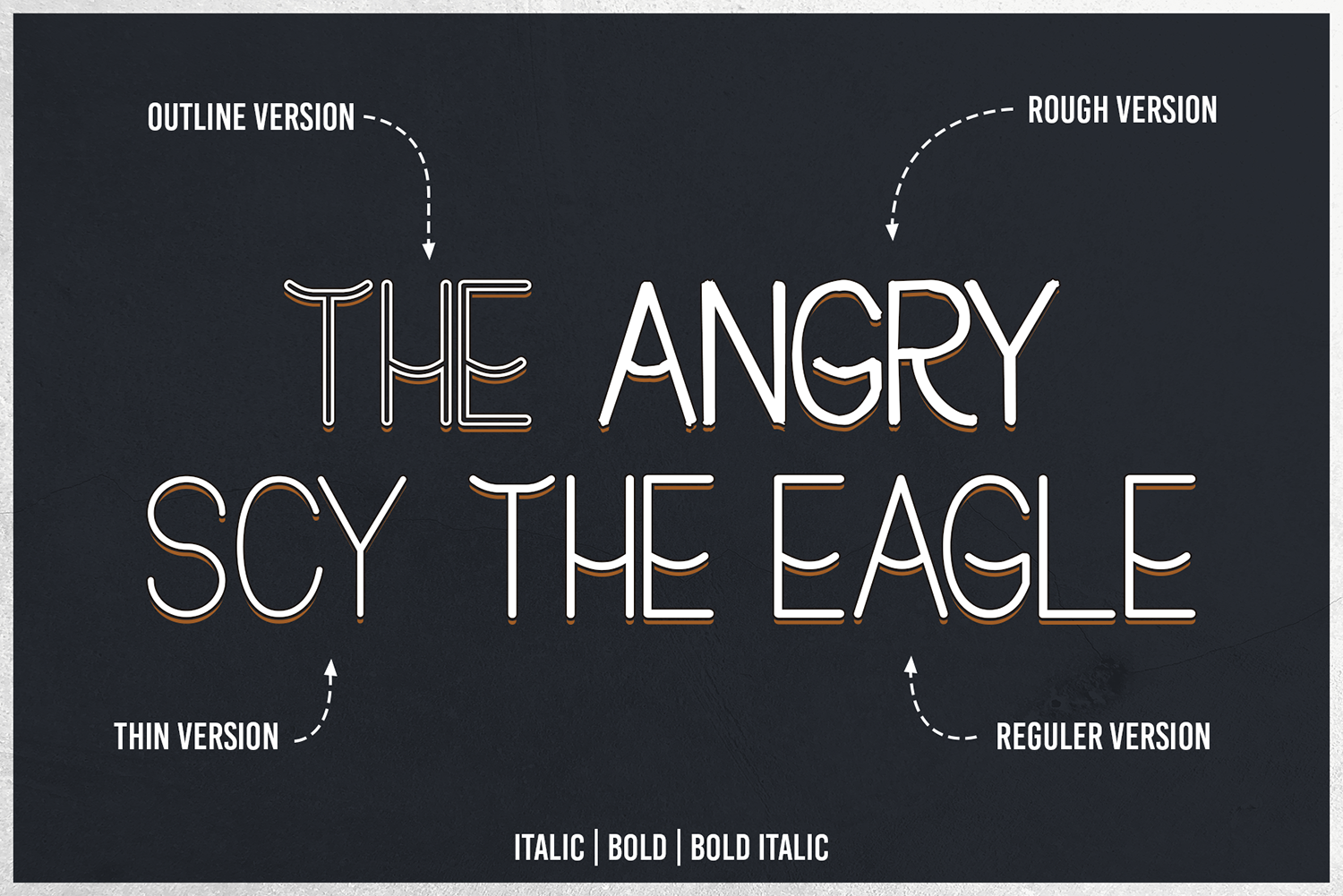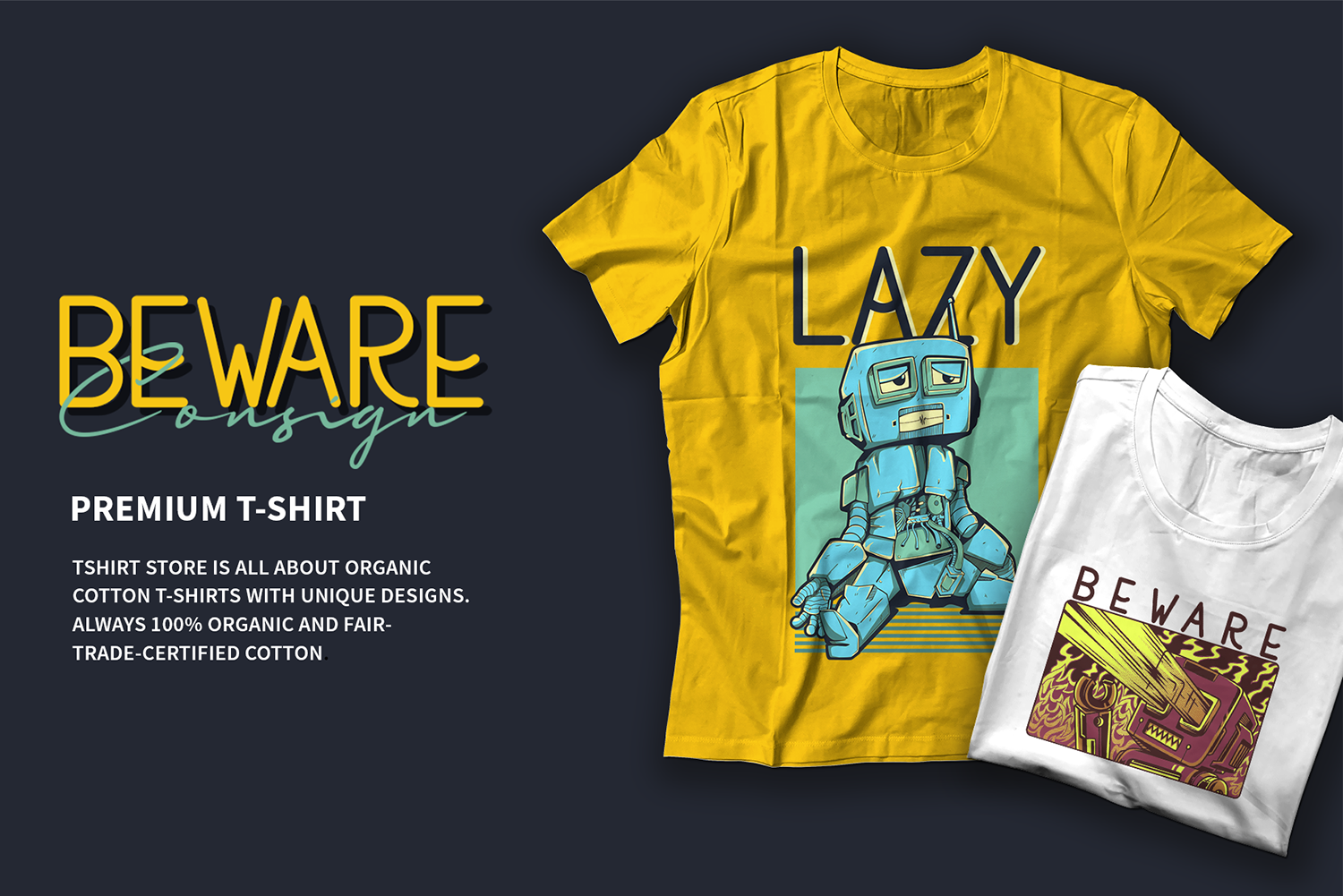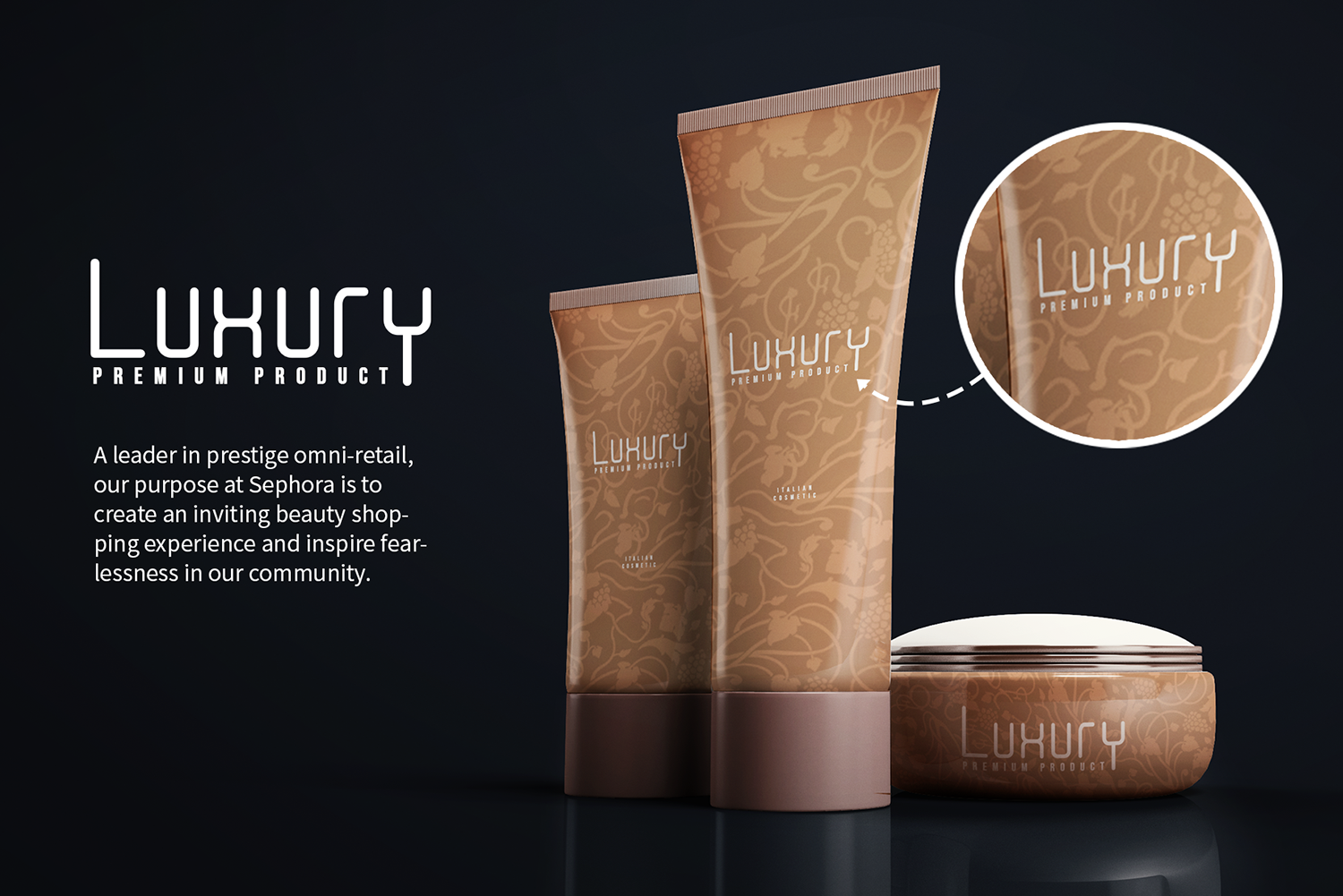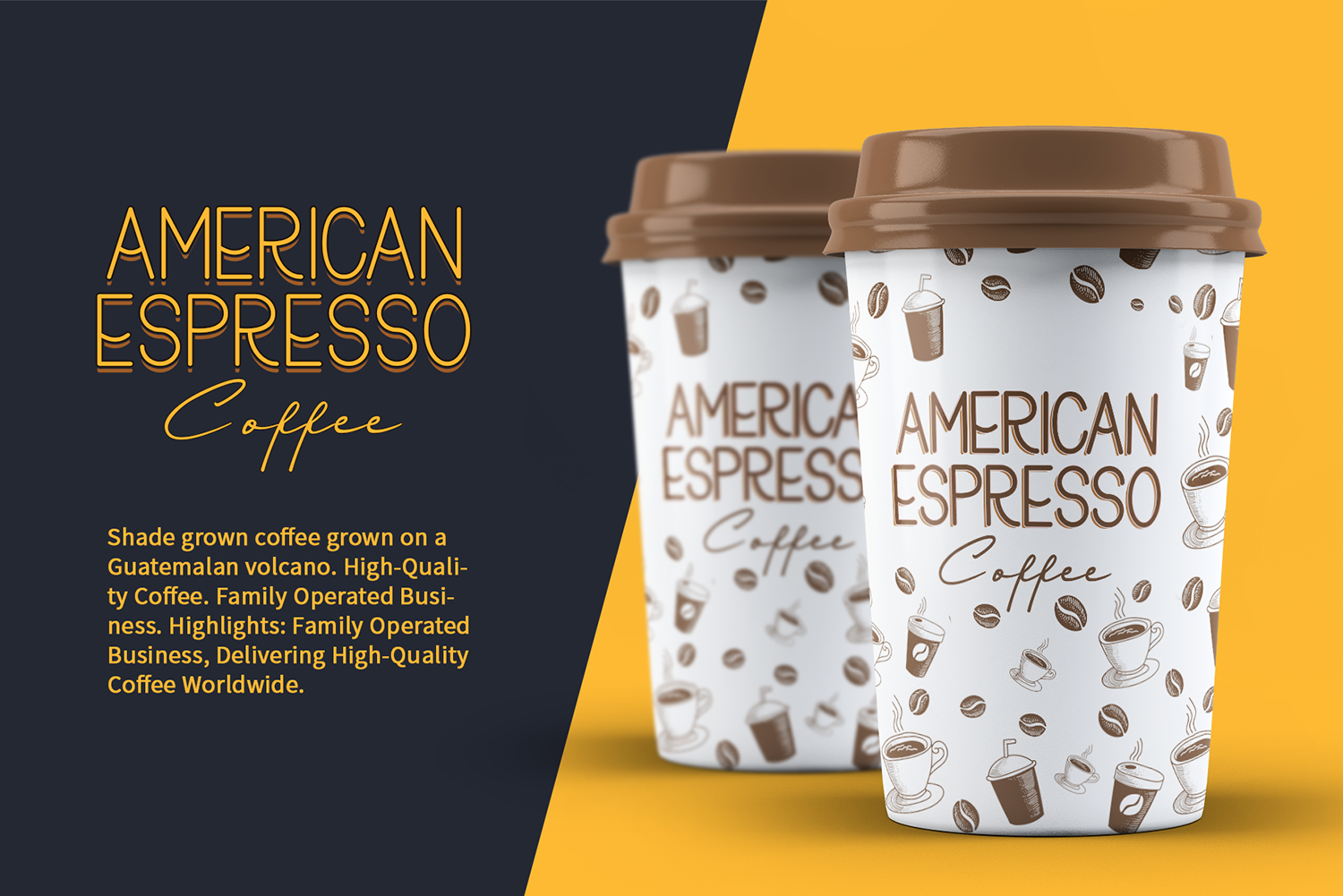
Buon Umore Free Font
Buon Umore Free Font is very suitable to make an adorable invitation for a wedding, birthday, special day, and also perfect for your other project branding. This free typeface was designed by talented Kong Font. If you like it don’t forget to check out the full version.